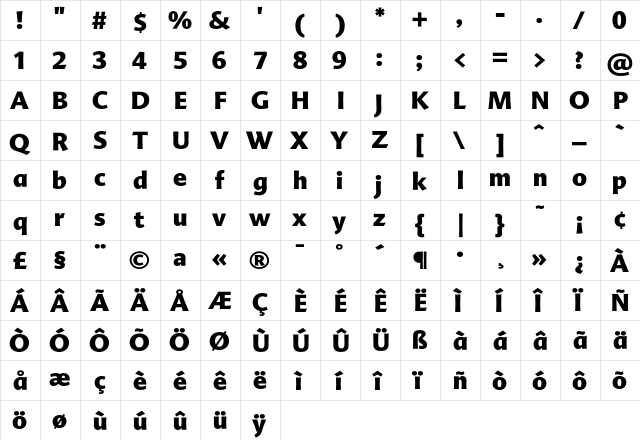
Advert-Black Regular
Design Context for Advert-Black Typeface
Advert-Black offers clean, dependable letterforms without strong stylistic allegiance, making it a practical choice for designers who need flexibility.
Pro Tip: Use Advert-Black in both headline and body roles to test its range before committing to a single application.